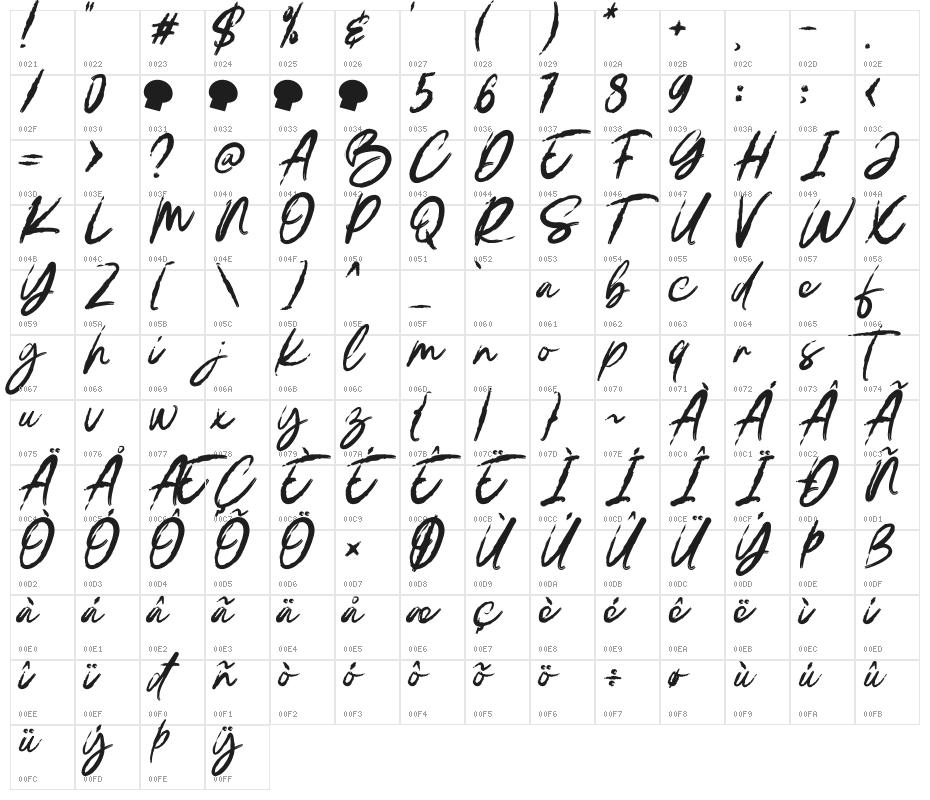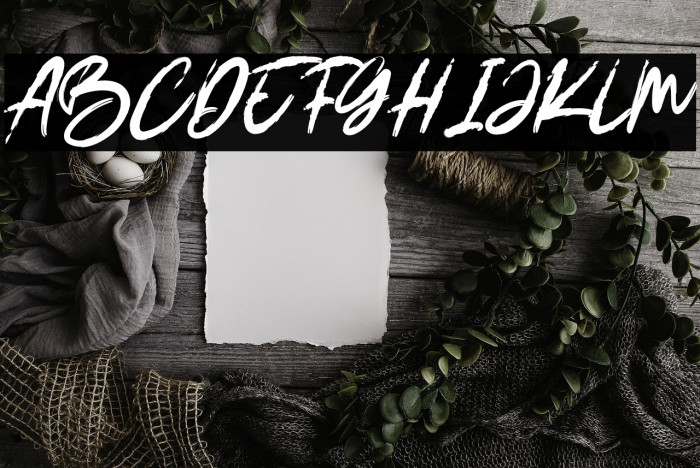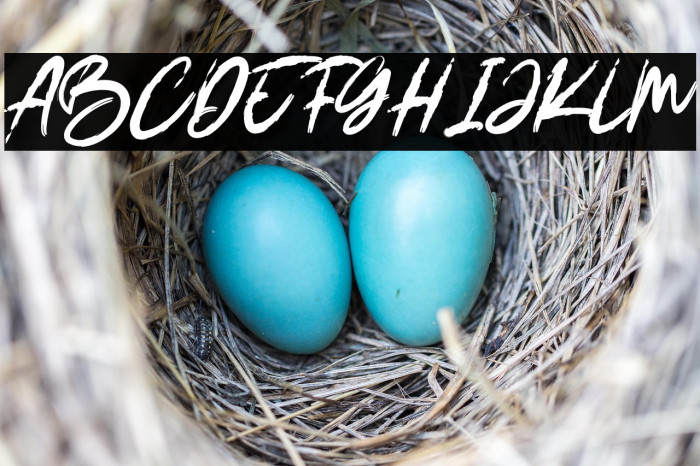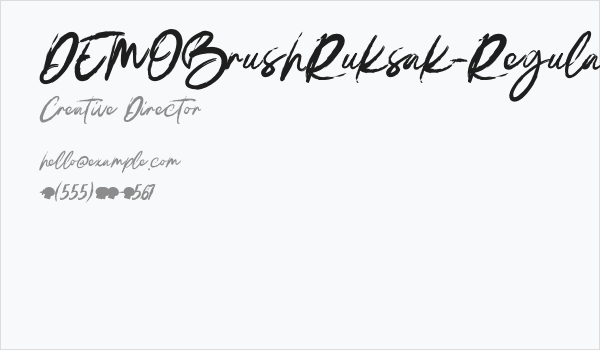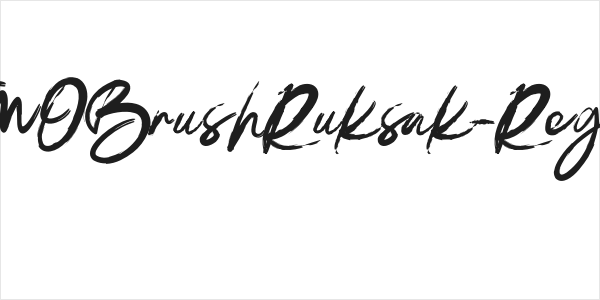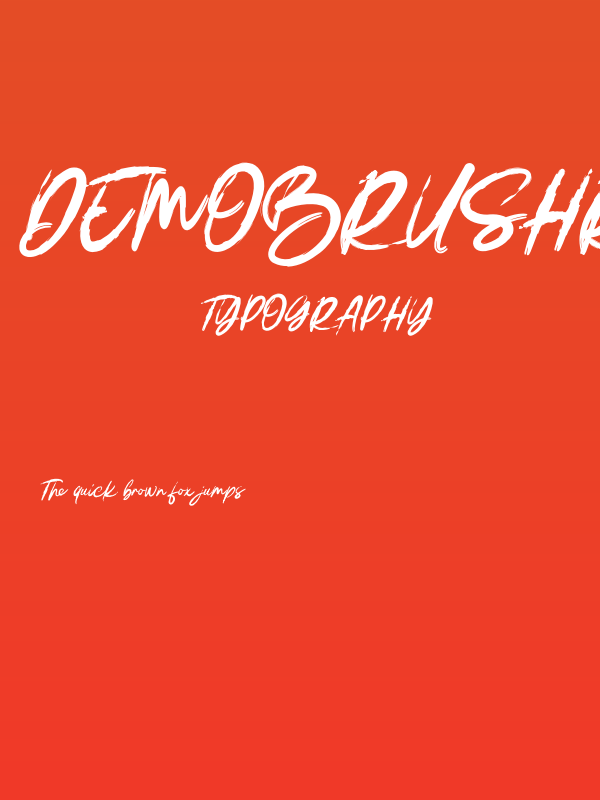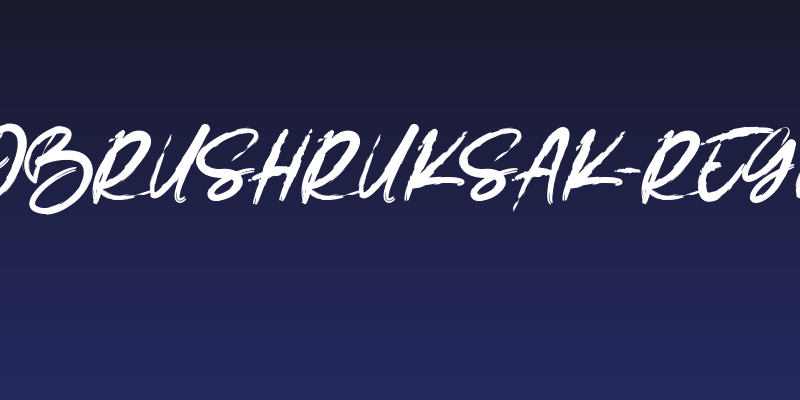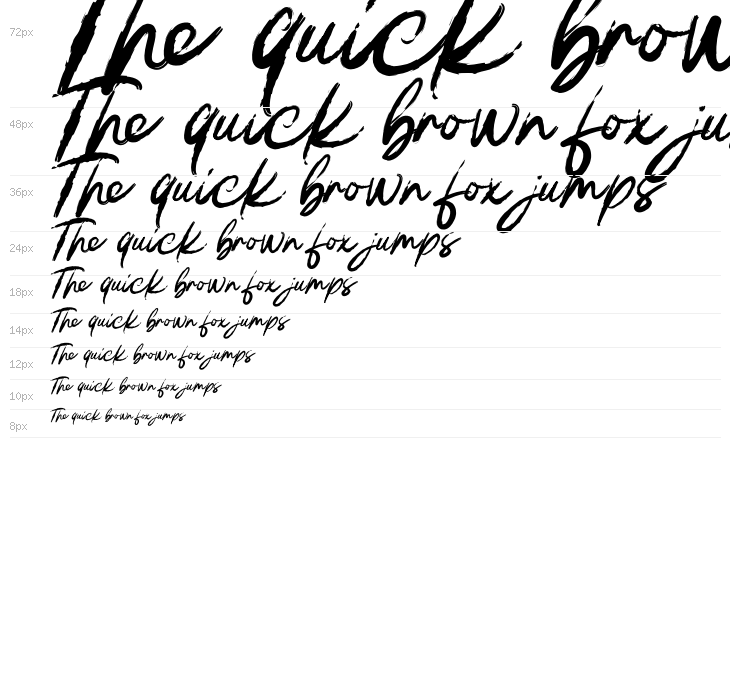
DEMOBrushRuksak-Regular Font
DEMOBrushRuksak-Regular Description
This font features a dynamic and expressive brush script style, characterized by its fluid and energetic strokes. The letters exhibit a hand-painted appearance, with varying thicknesses that add a sense of movement and spontaneity. The uppercase and lowercase letters maintain a consistent flow, while the numerals and special characters complement the overall aesthetic. The font's organic and artistic nature makes it suitable for creative projects that require a personal touch.